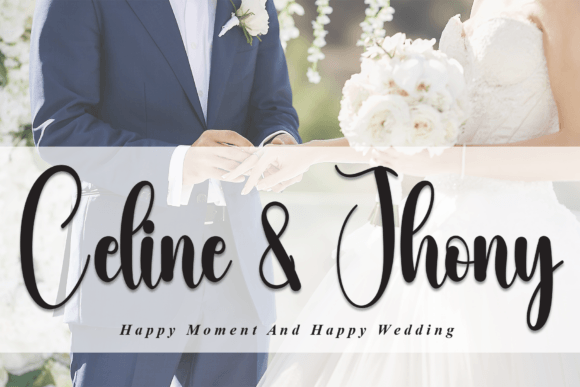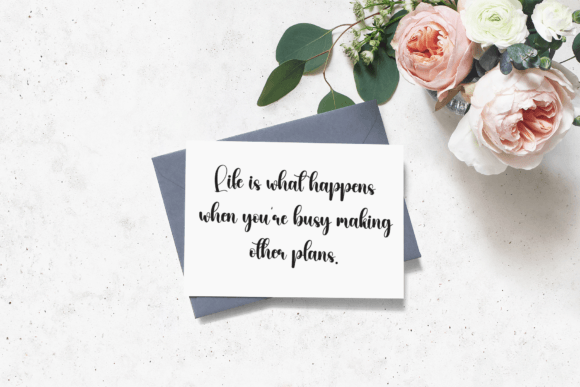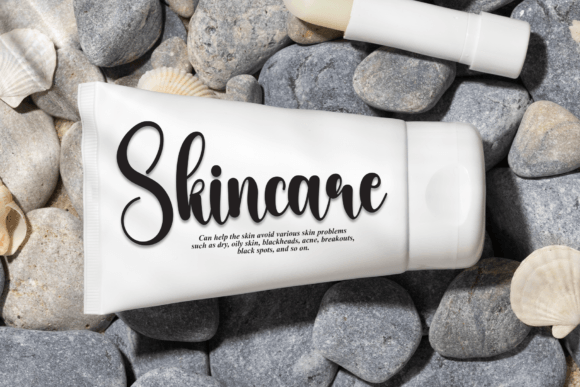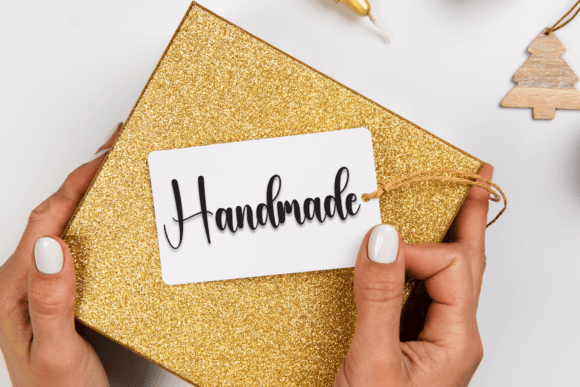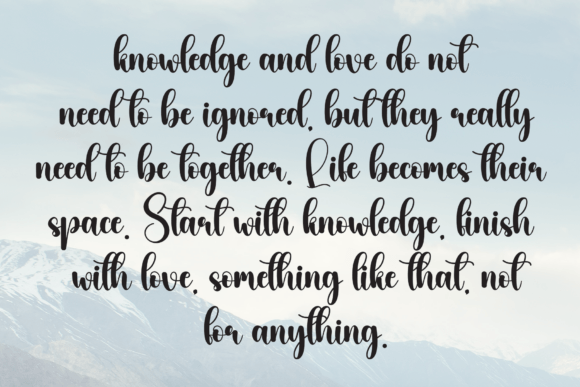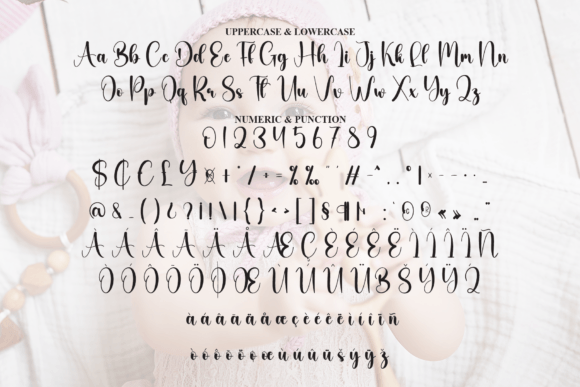
Baby Sweety Font: The Ultimate Choice for Sweet and Playful Designs
Are you looking for a font that can add a touch of sweetness and playfulness to your designs? Look no further than the Baby Sweety font! This adorable, handwritten font is perfect for baby-themed projects, greeting cards, and any other design that needs a personal and warm feel.
What Makes Baby Sweety Font So Special?
Baby Sweety is a cute, handwritten font that looks playful and friendly. Its soft curves and light, joyful style make it an ideal choice for designers and crafters who want to add a touch of whimsy to their work. The letters feel personal and warm, adding charm to any design. Whether you’re creating a baby shower invitation, a greeting card, or a nursery decor, Baby Sweety font is sure to make your design stand out.
Characteristics of Baby Sweety Font
So, what makes Baby Sweety font so unique? Here are some of its key characteristics:
- Cute and Playful: Baby Sweety font is designed to be playful and fun, making it perfect for baby-themed projects and designs.
- Soft Curves: The font features soft curves that give it a warm and inviting feel.
- Light and Joyful: The font has a light and joyful style that adds a touch of happiness to any design.
- Handwritten: Baby Sweety font is a handwritten font, which gives it a personal and unique feel.
- Perfect for Baby-Themed Projects: The font is specifically designed for baby-themed projects, making it a great choice for designers and crafters who work with baby-related designs.
Uses of Baby Sweety Font
Baby Sweety font is a versatile font that can be used in a variety of designs, including:
- Baby Shower Invitations: The font is perfect for creating adorable baby shower invitations that set the tone for a joyful celebration.
- Greeting Cards: Baby Sweety font can be used to create sweet and personalized greeting cards for special occasions.
- Nursery Decor: The font can be used to create custom nursery decor, such as wall art and signs, that add a touch of sweetness to a baby’s room.
- Baby-Themed Crafts: Baby Sweety font is perfect for creating baby-themed crafts, such as baby blocks, onesies, and baby blankets.
Why Designers and Crafters Love Baby Sweety Font
Designers and crafters love Baby Sweety font for several reasons:
- Easy to Read: The font is easy to read, making it perfect for designs that require a clear and legible font.
- Versatile: Baby Sweety font can be used in a variety of designs, from digital designs to print materials.
- Unique: The font has a unique and distinctive style that sets it apart from other fonts.
- High-Quality: Baby Sweety font is a high-quality font that is designed to deliver exceptional results.
In conclusion, Baby Sweety font is a cute, playful, and versatile font that is perfect for baby-themed projects, greeting cards, and any other design that needs a touch of sweetness. Its soft curves, light, and joyful style make it an ideal choice for designers and crafters who want to add a personal and warm feel to their work. With its ease of use, high-quality design, and unique style, Baby Sweety font is sure to become a favorite among designers and crafters.